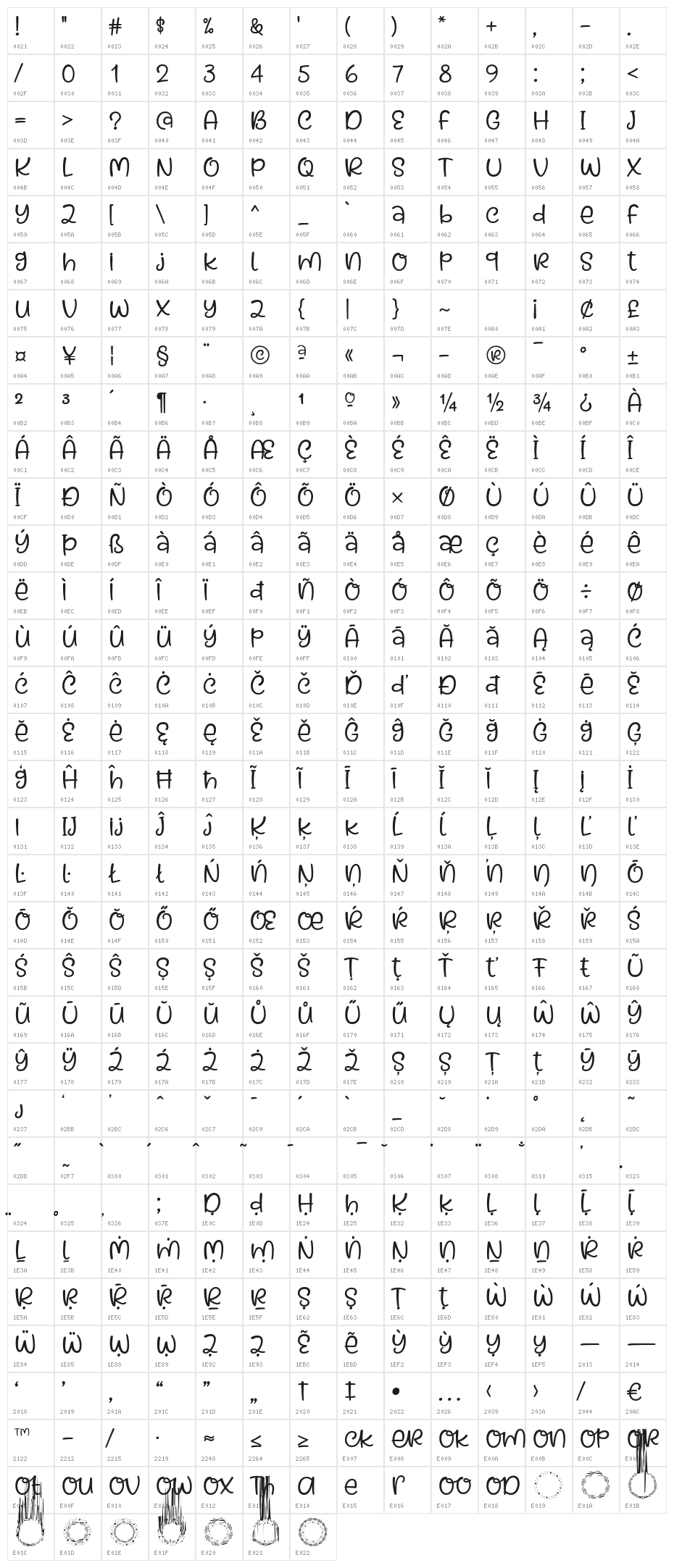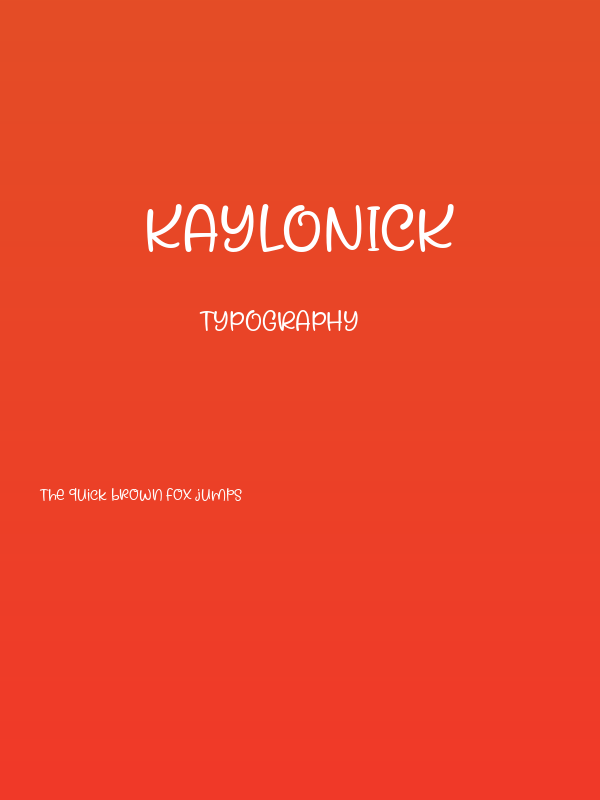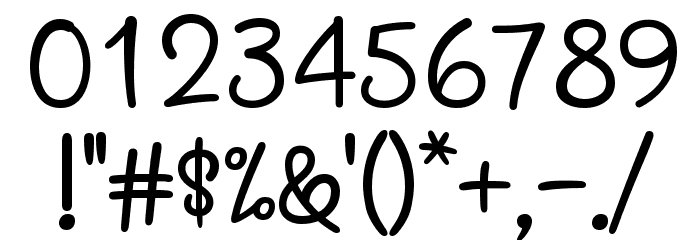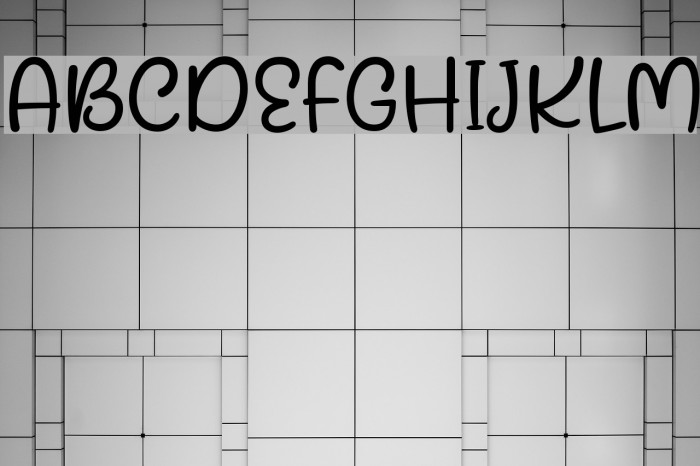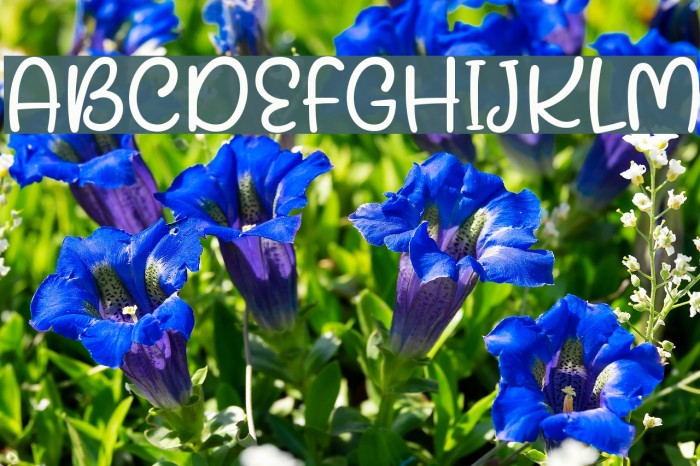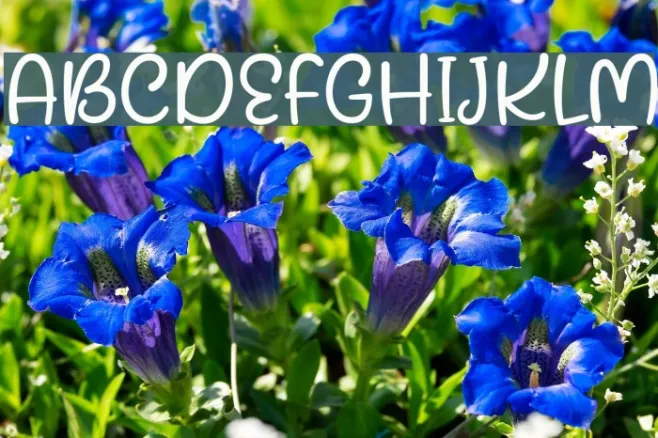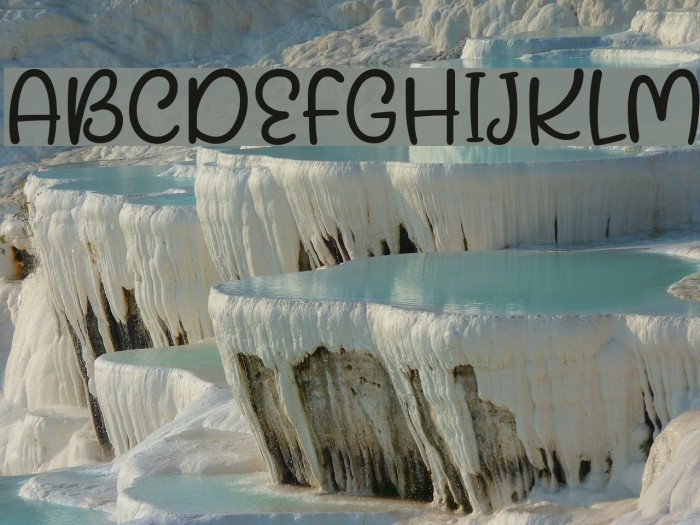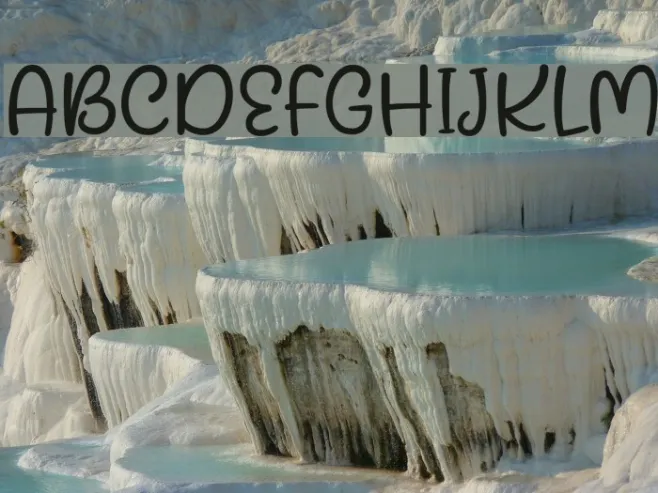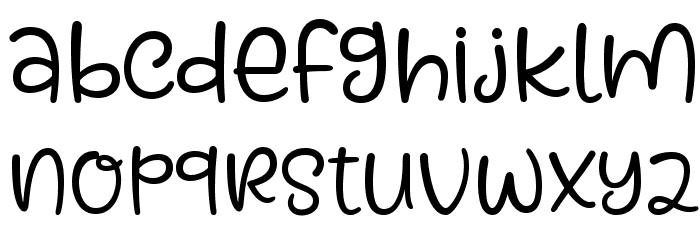
Kaylonick Font
Kaylonick Description
This playful and whimsical font features rounded, flowing characters that convey a sense of friendliness and approachability. The letters are slightly irregular, adding a hand-drawn feel that enhances its casual and informal style. The uppercase and lowercase letters maintain a consistent style, with smooth curves and a moderate stroke width that ensures readability. The numerals and special characters are designed to match the overall aesthetic, making them suitable for a variety of uses. The font's charm lies in its simplicity and the subtle variations in character shapes, which give it a unique personality.
| Proposed Projects | Ideal for children's books, greeting cards, casual branding, and playful social media graphics. |